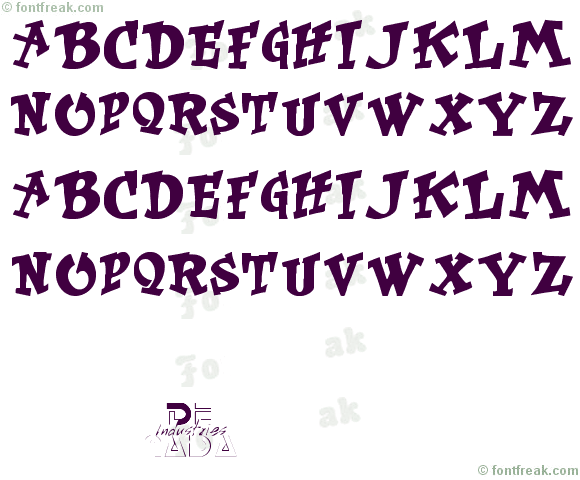
KrtRussell
About Krt Russell
Krt Russell is a striking display font designed by Mike Allard, showcasing a unique blend of modern and playful aesthetics. As a free-to-use typeface under a freeware license, it offers an exciting option for designers and creatives looking to elevate their projects. This font falls into the display category, characterized by its bold and distinctive letterforms. The strokes exhibit a medium weight with subtle contrasts, giving it a robust presence while maintaining legibility. The spacing between the characters is generous, allowing each letter to stand out, enhancing readability even at larger sizes.
Visually, Krt Russell features rounded edges and a slightly whimsical flair, making it an excellent choice for a variety of creative applications. This font is particularly well-suited for wedding invitations, where its elegant yet playful style can add a touch of charm. Additionally, it works wonderfully for movie posters, capturing attention with its eye-catching design. Restaurant menus can benefit from Krt Russell's friendly appearance, making the dining experience feel inviting. It is also ideal for branding projects, especially for small businesses looking to establish a memorable identity.
The target audience for Krt Russell includes graphic designers, small business owners, and content creators who value creativity and uniqueness in their work. Its versatility and free availability make it an essential addition to any designer's toolkit.
What sets Krt Russell apart is its ability to convey both personality and professionalism, making it an engaging choice for a wide range of projects. With the Krt Russell font free download, you can effortlessly incorporate its distinctive style into your designs, ensuring your typography stands out in a crowded marketplace. Embrace the charm of Krt Russell and let it enhance your creative endeavors.